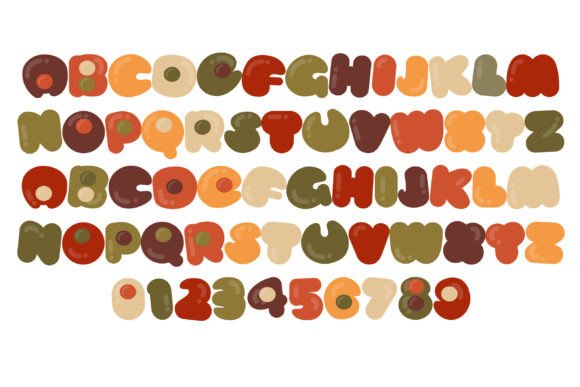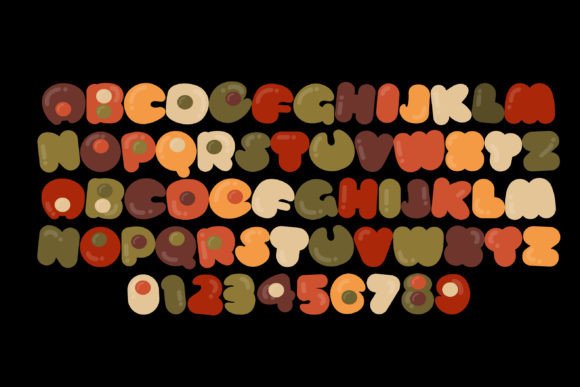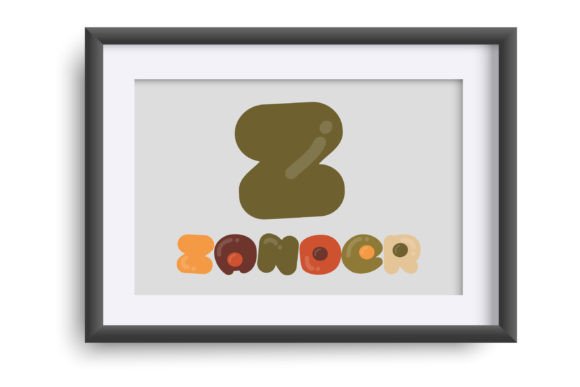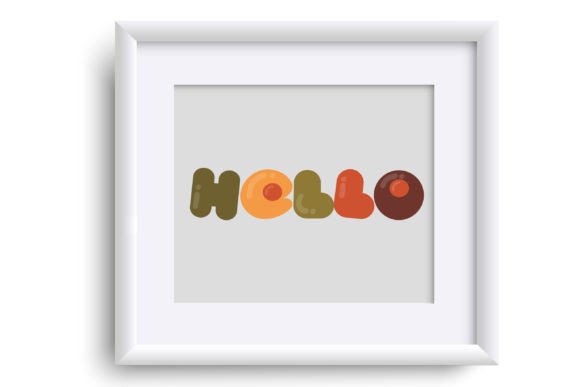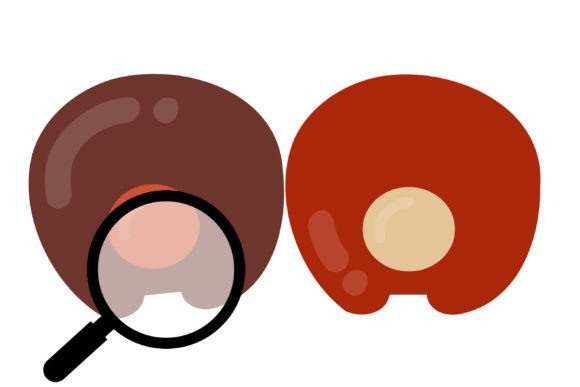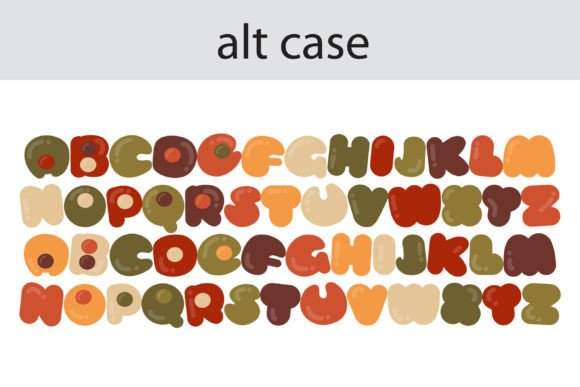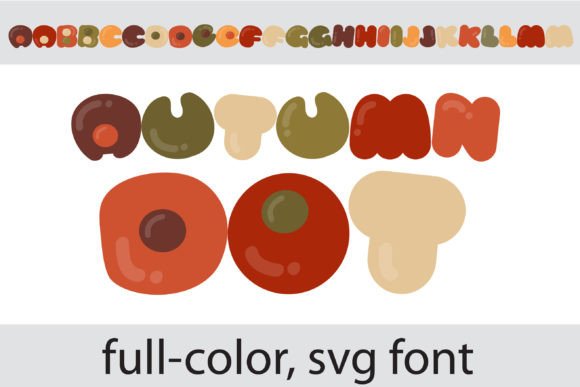
Introducing Autumn Dot Font: Add a Touch of Warmth to Your Designs
Are you looking for a unique and vibrant font to elevate your designs? Look no further than the Autumn Dot Font, a full-color font featuring rounded, chunky lettering with colorful center dots in an autumn-inspired color palette. This beautiful font is perfect for designers and crafters who want to add a touch of personality to their work.
What Makes Autumn Dot Font Special?
The Autumn Dot Font is a one-of-a-kind font that boasts a range of features that set it apart from other fonts. Here are a few things that make it special:
• Rounded and Chunky Lettering: The font features rounded, chunky lettering that gives it a playful and whimsical feel.
• Colorful Center Dots: Each letter has a colorful center dot that adds a pop of color and visual interest to your designs.
• Autumn Color Palette: The font features a beautiful autumn-inspired color palette that includes warm shades of orange, yellow, and red.
• Alt Version of Each Letter: The font also includes an alternate version of each letter in a different color, which can be accessed through your system character map.
The Benefits of Full-Color SVG Fonts
Full-color SVG fonts, like the Autumn Dot Font, offer a range of benefits for designers and crafters. Here are a few:
• Add Personality to Your Designs: Full-color SVG fonts allow you to add a touch of personality to your designs, making them more engaging and eye-catching.
• Range of Colors and Styles: With a full range of colors and styles to choose from, you can create anything from simple to complex designs.
• Perfect for Crafters and Designers: Full-color SVG fonts are perfect for crafters and designers who want to create unique and visually appealing designs.
The Autumn Dot Font is a beautiful and unique font that can add a touch of warmth and personality to your designs. With its rounded, chunky lettering and colorful center dots in an autumn-inspired color palette, it’s perfect for designers and crafters who want to create visually appealing designs. By understanding how to install and use the font, you can unlock its full potential and take your designs to the next level.